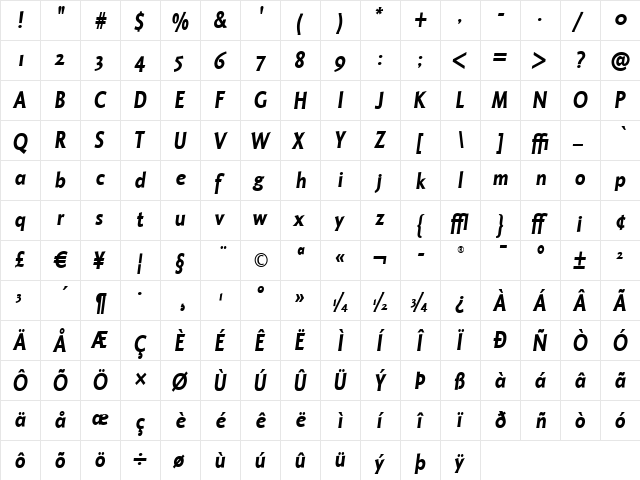
Octone ITC Bold Italic
Design Context for Octone ITC Typeface
Octone ITC is a composed and adaptable typeface that performs quietly and consistently across a wide range of design contexts. The dynamic lean of this cut emphasises speed and emphasis in any layout. The heavy weight commands attention and anchors typographic hierarchies.